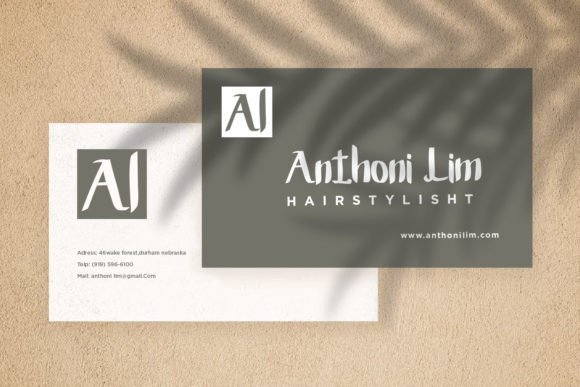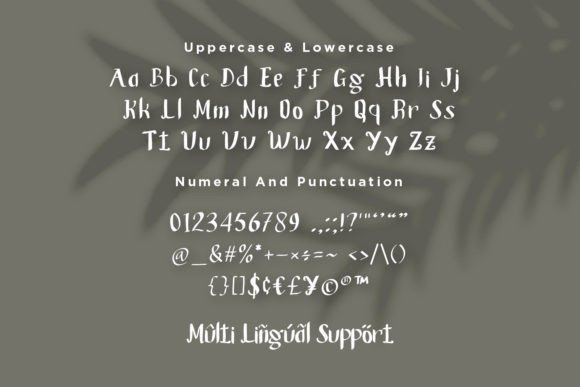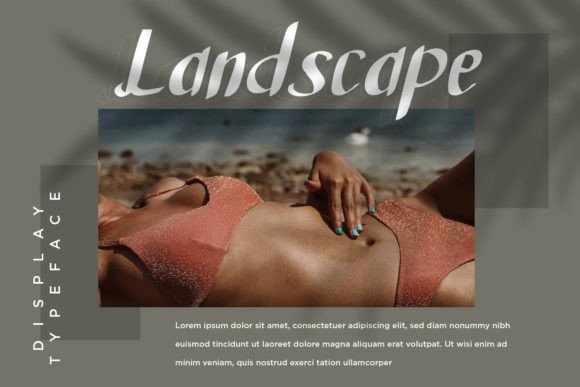
Introduction to Qonstanie Font
Imagine you’re brainstorming ideas for a high-end fashion campaign, and you need a font that exudes luxury and sophistication. You’re scrolling through design resources, searching for the perfect combination of elegance and strength. That’s when you stumble upon the Qonstanie Font – a game-changer for designers seeking a premium aesthetic.
With its sharp edges and clean lines, the Qonstanie Font is a masterclass in refined design. Its intricate details and flourishes add a touch of glamour, making it the perfect addition to any creative project. Whether you’re working on a logo, brochure, or advertising campaign, this font is sure to elevate your design to the next level.
Key Features of Qonstanie Font
- Qonstanie Font features a unique, hand-drawn design that adds a touch of personality to any project.
Honest Review: Qonstanie Font
I recently stumbled upon the Qonstanie Font while searching for a unique design resource for a creative project. As a designer, I was excited to give it a try.
Some limitations: ⚠️ While the Qonstanie Font is a great addition to any designer’s toolkit, it may not be suitable for all types of projects. The font is quite bold and playful, so it’s best used for creative projects where a statement is needed.
Overall, I’m impressed with the Qonstanie Font and would definitely recommend it to designers looking for a unique and stylish design resource. Just be aware of its limitations and use it for the right type of project.
The Qonstanie Font is a high-quality design resource that can elevate your creative project with its unique and stylish characters. This font is perfect for designers, artists, and anyone looking to add a touch of elegance to their work.
The Qonstanie Font is perfect for a variety of design projects, including:
– Wedding invitations and stationery
– Branding and logo design
– Advertising and marketing materials
– Digital products and e-books